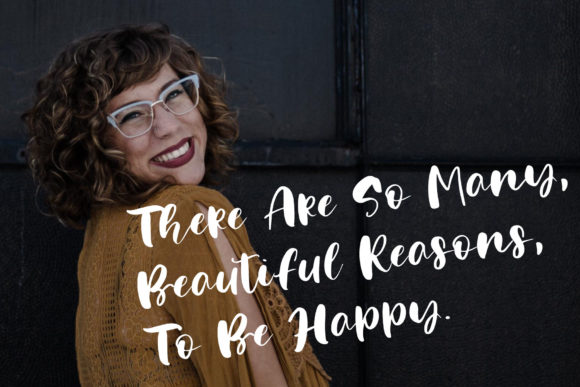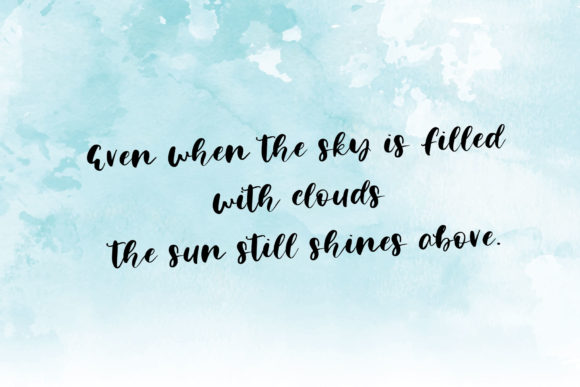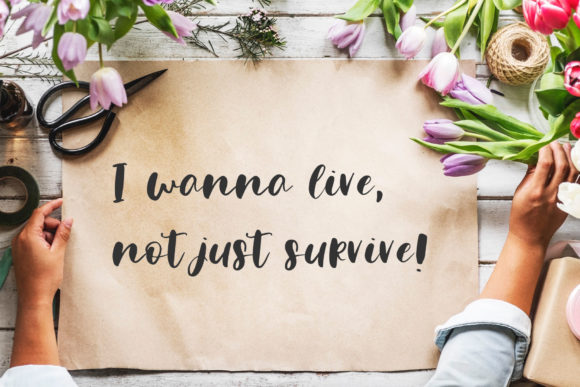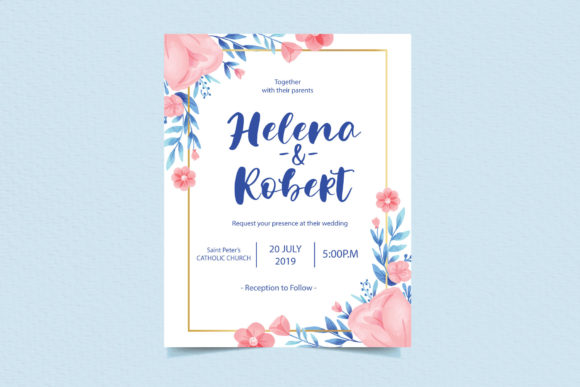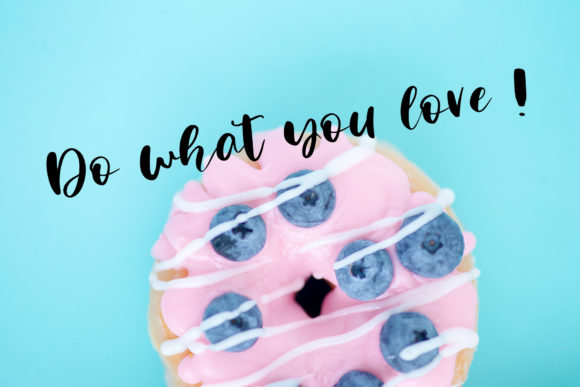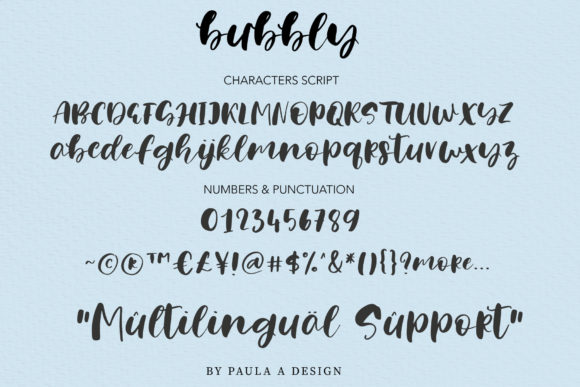
Bubbly Font: Elevate Your Designs with a Chic Brush Font
The Bubbly font is a stunning brush font that exudes style and sophistication. Its chic appearance makes it perfect for creating high-impact headlines that grab attention. Whether you’re a designer, crafter, or DIY enthusiast, this versatile font is sure to become a favorite in your toolkit.
What is the Bubbly Font?
The Bubbly font is a type of brush script font that mimics the look of hand-painted letters. Its unique, flowing strokes and rounded edges give it a friendly, approachable feel that’s perfect for a wide range of design applications. From elegant invitations to bold branding, and from stylish blog posts to eye-catching signage, the Bubbly font is an excellent choice.
Key Features of the Bubbly Font
- Stylish Look: The Bubbly font boasts a chic, high-end appearance that’s sure to elevate your designs.
- Versatility: Use it for invitations, branding, blog posts, signage, and more!
- Easy to Read: Despite its artistic nature, the Bubbly font remains highly legible, making it perfect for headlines and titles.
- Customizable: Experiment with different colors, sizes, and styles to make the font your own.
Uses for the Bubbly Font
The Bubbly font is incredibly versatile, making it suitable for a wide range of design projects. Here are some ideas to get you started:
- Invitations: Create beautiful wedding invitations, birthday party invites, or baby shower announcements that set the tone for your special event.
- Branding: Use the Bubbly font to create a cohesive brand identity that reflects your business’s personality and style.
- Blog Posts: Add a touch of elegance to your blog titles and headings with the Bubbly font.
- Signage: Make a statement with eye-catching signs that feature the Bubbly font.
- Social Media Graphics: Use the Bubbly font to create engaging social media graphics that stand out in crowded feeds.
Tips for Working with the Bubbly Font
To get the most out of the Bubbly font, follow these tips:
- Pair it with Other Fonts: Combine the Bubbly font with complementary fonts to create visual interest and hierarchy.
- Experiment with Colors: Try out different colors and gradients to match your brand’s color scheme or add a pop of personality.
- Adjust the Size: Use the Bubbly font in various sizes to create emphasis and draw attention to key elements.
- Make it Your Own: Don’t be afraid to add your own twist to the Bubbly font – experiment with different styles, effects, and textures to make it unique.
The Bubbly font is a chic, versatile brush font that’s perfect for designers, crafters, and DIY enthusiasts. Its stylish look, ease of use, and wide range of applications make it an excellent addition to any design toolkit. Whether you’re creating invitations, branding, blog posts, or signage, the Bubbly font is sure to elevate your designs and make them stand out.